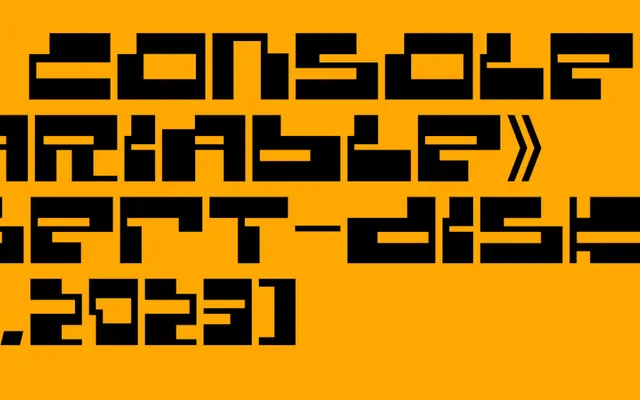
BD Console
Type Different · 1997
A pixel-style electronic display font originally from 1997, reissued as a variable font with broader Latin language support.
Originally designed in 1997, BD Console draws on the visual language of electronic displays and early digital screens. The 2023 update introduces a variable font version alongside Regular and Game cuts, adding wider glyph coverage across Western European Latin languages. Best suited to gaming, retro-themed design and anything that calls for an unabashedly digital character.
BD Console is a pixel-style electronic display font with a deliberately lo-fi, digital aesthetic, placing it firmly in the display category with a pixel or electronic subcategory.